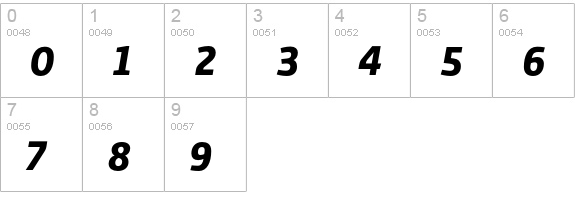
Vinkel Bold Italic is a strong, high-contrast, italic variant in the Vinkel typeface family \xE2\x80\x94 well suited to headlines, attention-grabbing titles, and strong calls-to-action.
Introducing Vinkel Bold Italic, a striking and versatile font that exudes elegance and sophistication. With its bold yet graceful curves, this typeface is perfect for adding a touch of modern flair to any design project. Whether you're working on a branding campaign, a magazine layout, or a website design, Vinkel Bold Italic is sure to make a bold statement. The unique italicized style of this font adds a dynamic and fluid touch to your text, making it stand out from the crowd. Its clean lines and sharp angles give it a contemporary edge, while the bold weight commands attention and ensures readability in any context. What's even better is that Vinkel Bold Italic is available for free download at FontsMarket.com. So whether you're a seasoned designer looking to add a fresh font to your collection or a newcomer in need of a stylish typeface, Vinkel Bold Italic is the perfect choice. Download it today and elevate your design projects with this striking and eye-catching font.